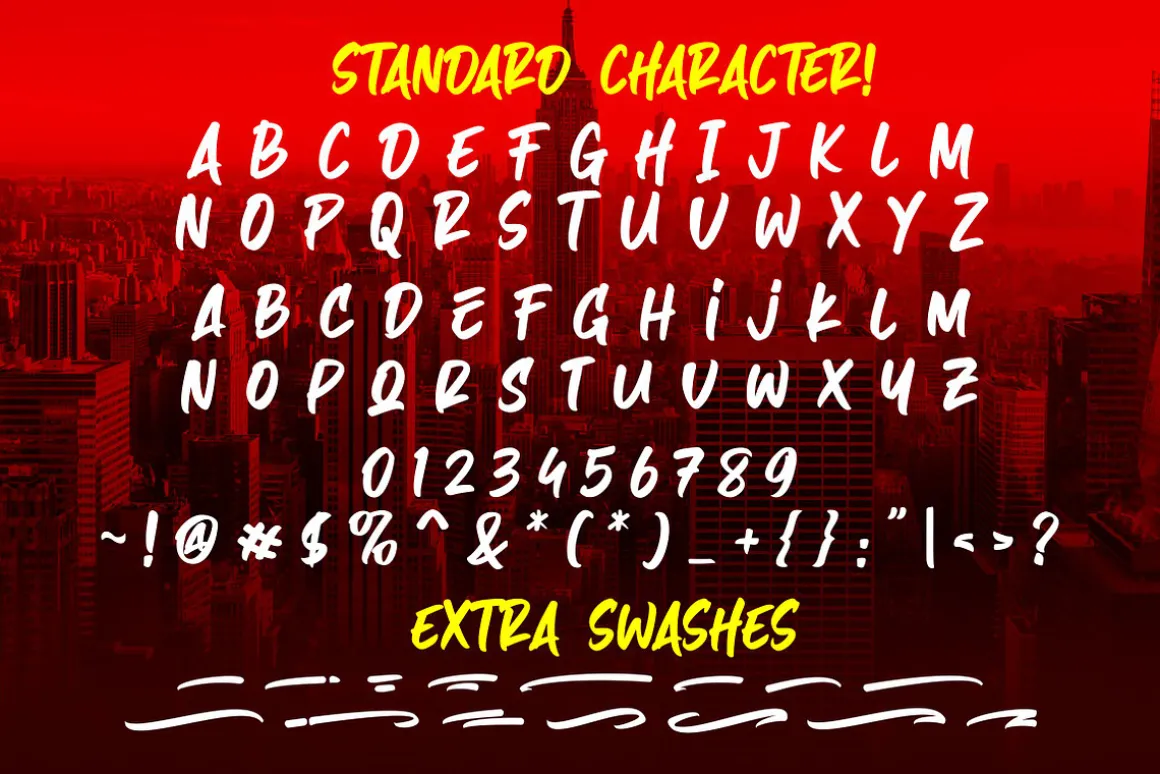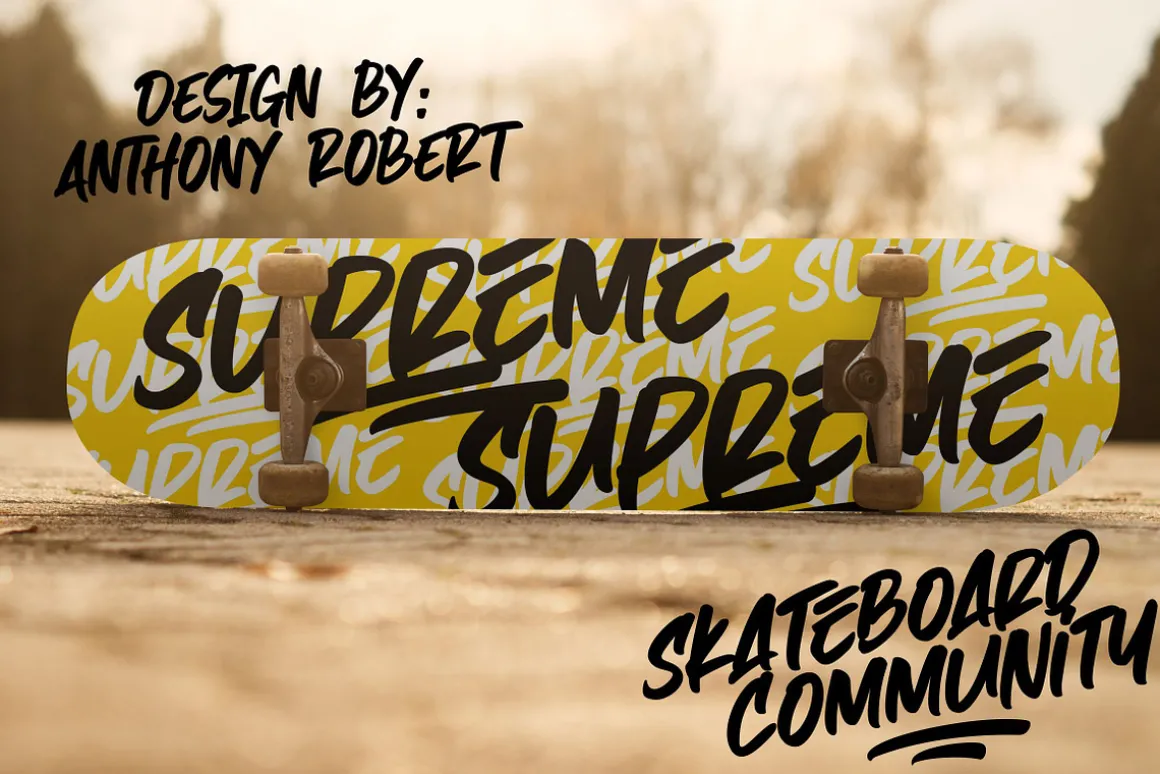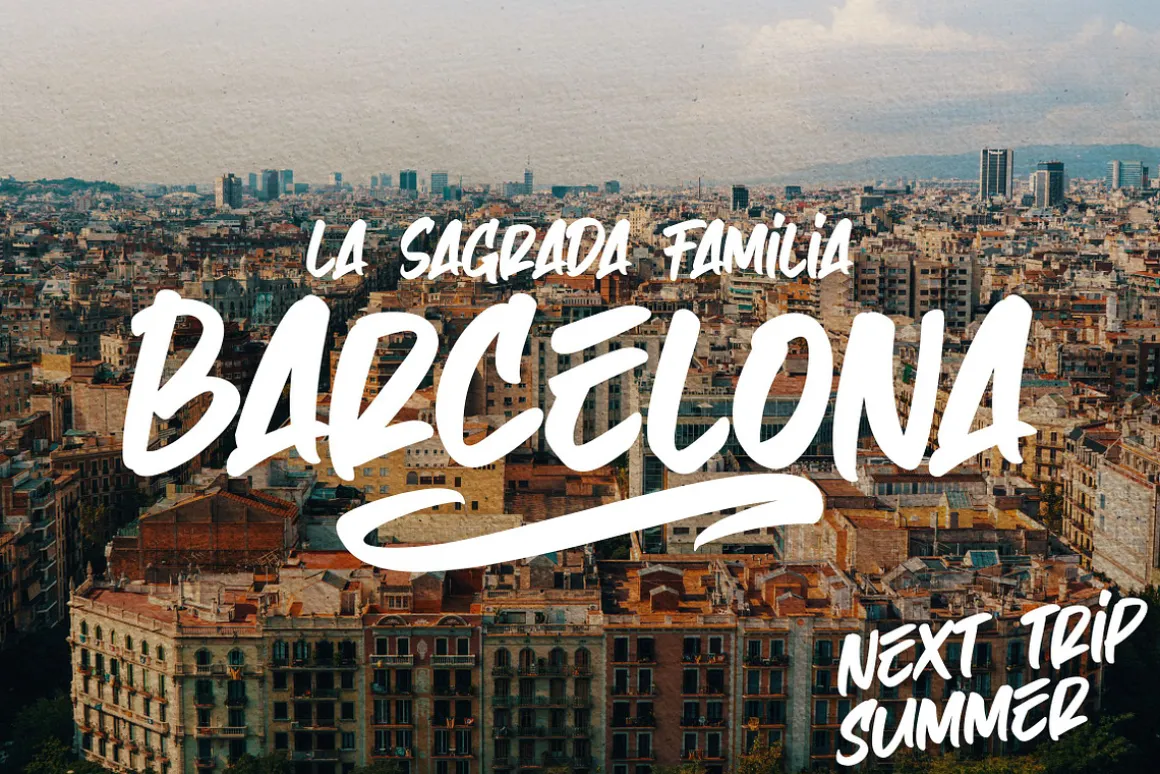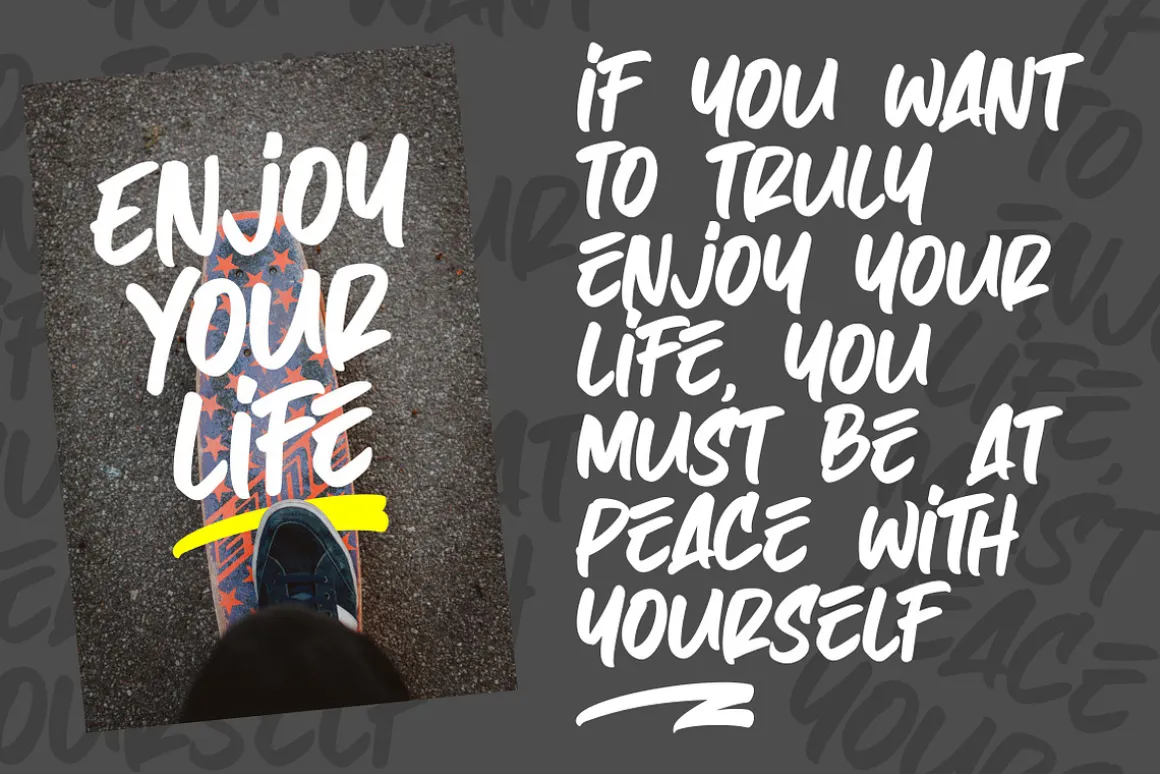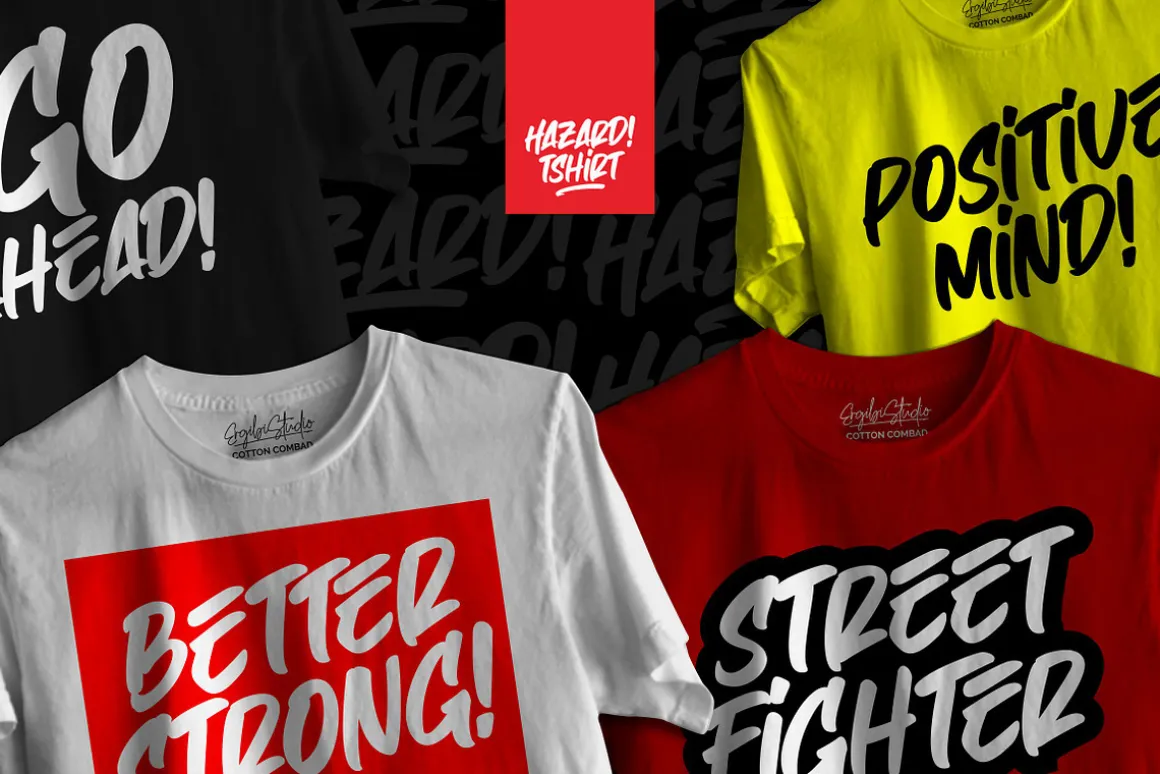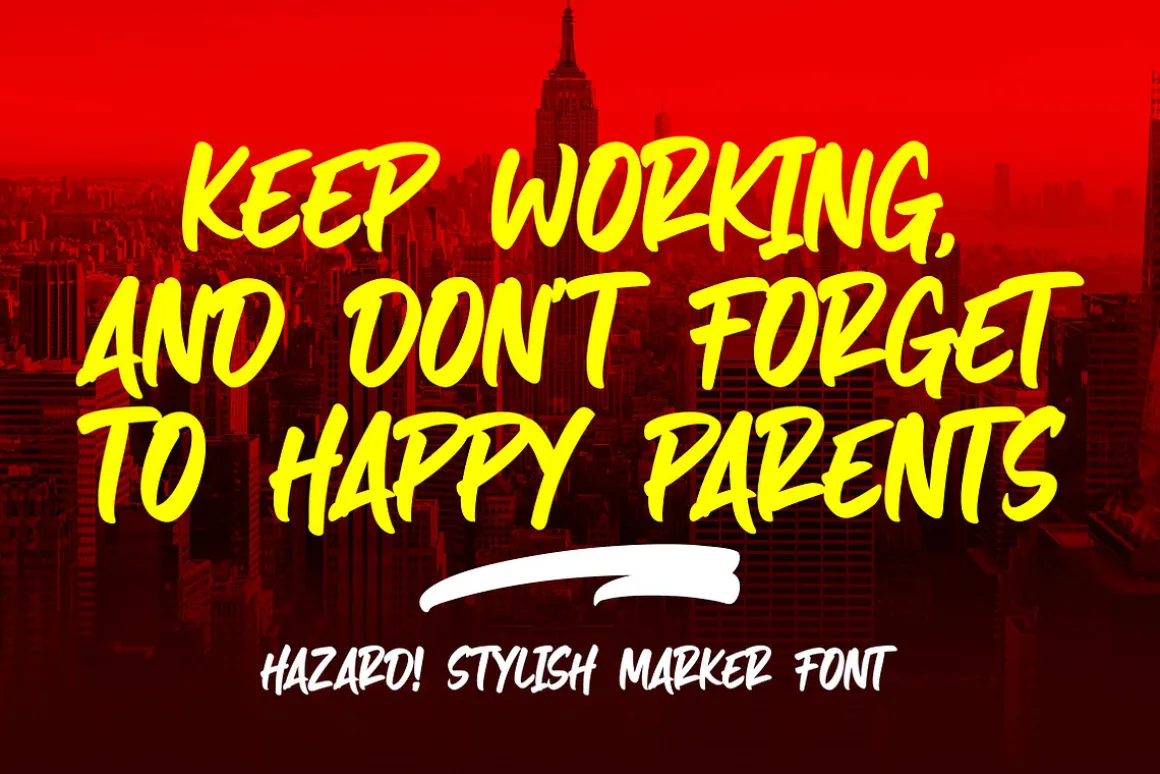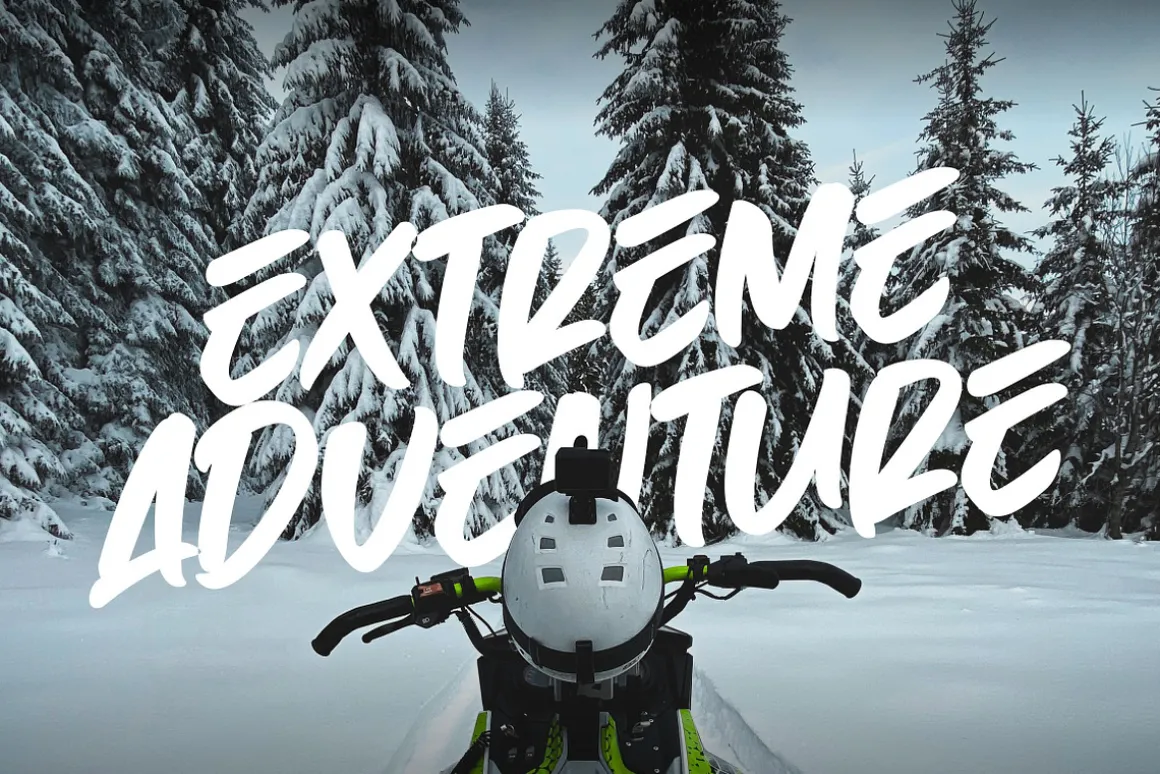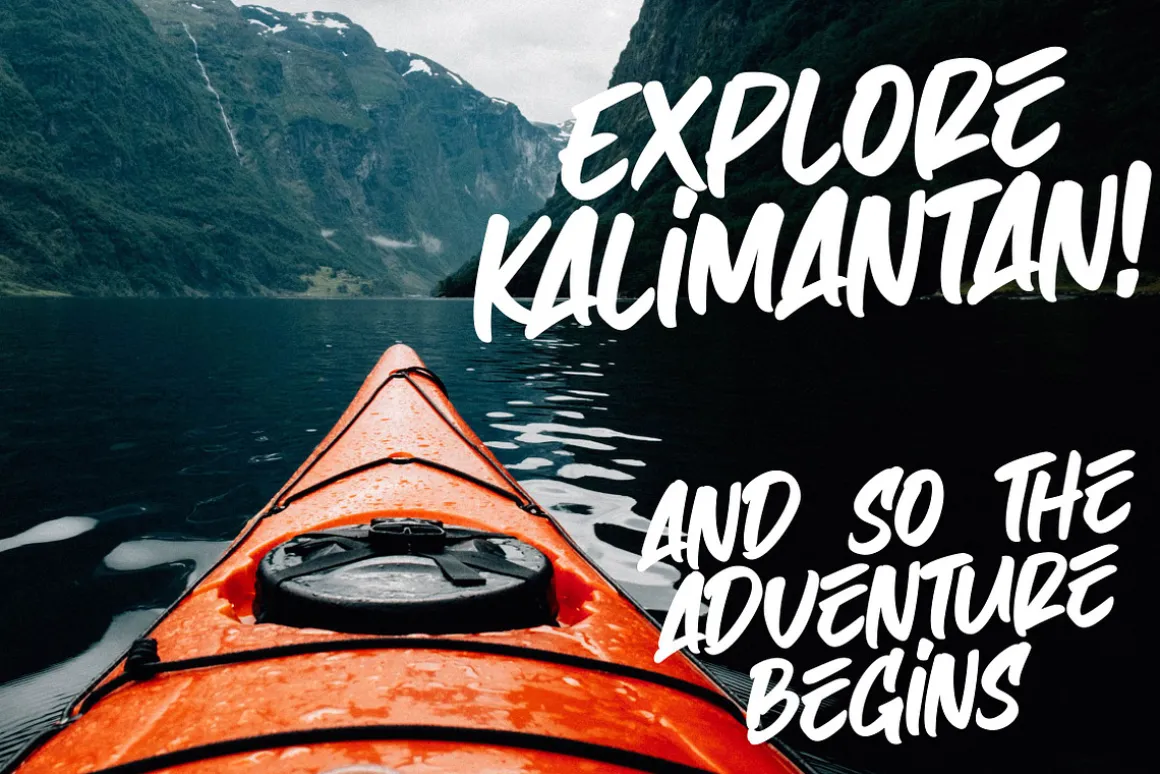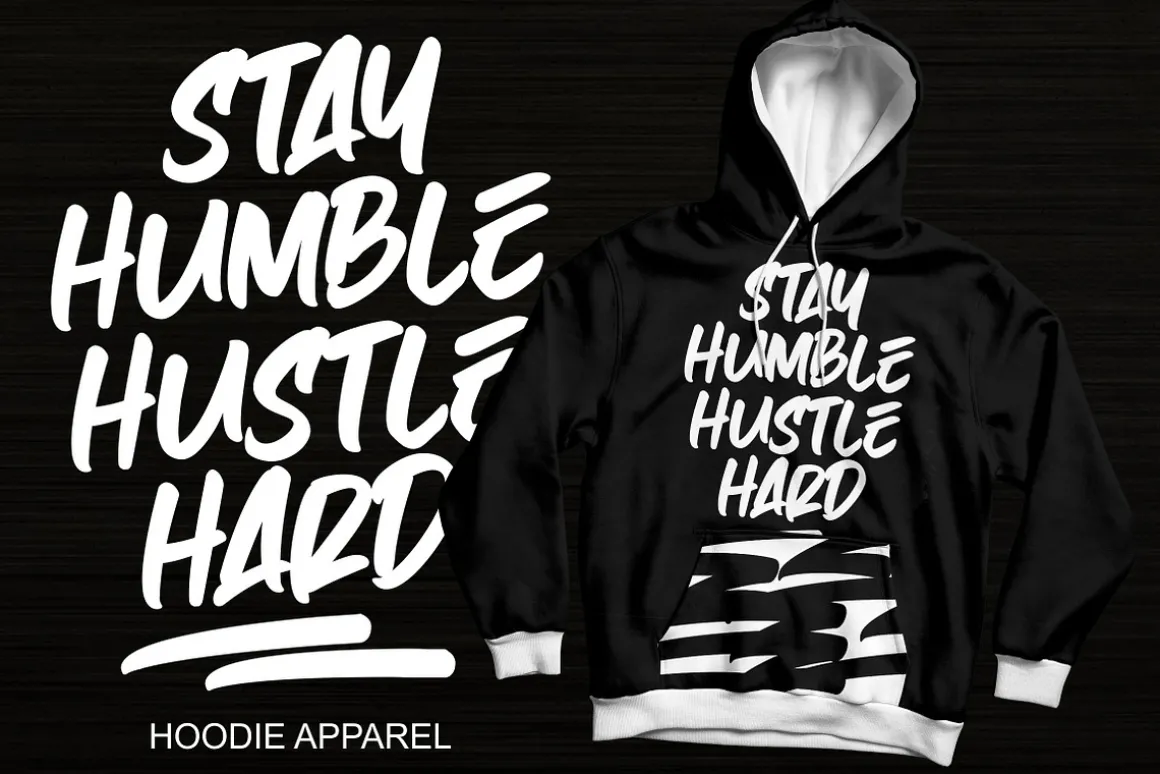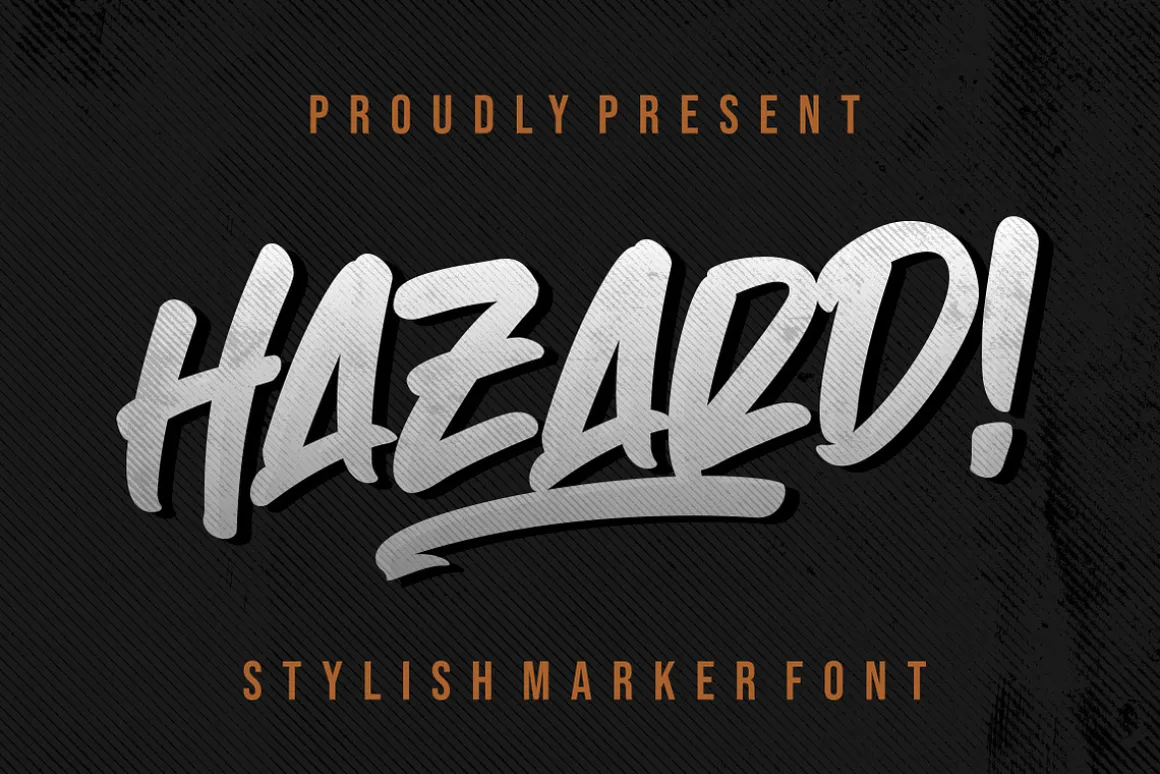
Introducing Hazard! Stylish Marker Font is a smooth brush font. style looks original, this font has its own uniqueness and when meeting with others will provide a dynamic and pleasant closeness. it is suitable for all your design projects such as quotes, poster designs, personal branding, promotional materials, logos, product packaging, etc. with the addition of bonush swash makes this font blend very interesting